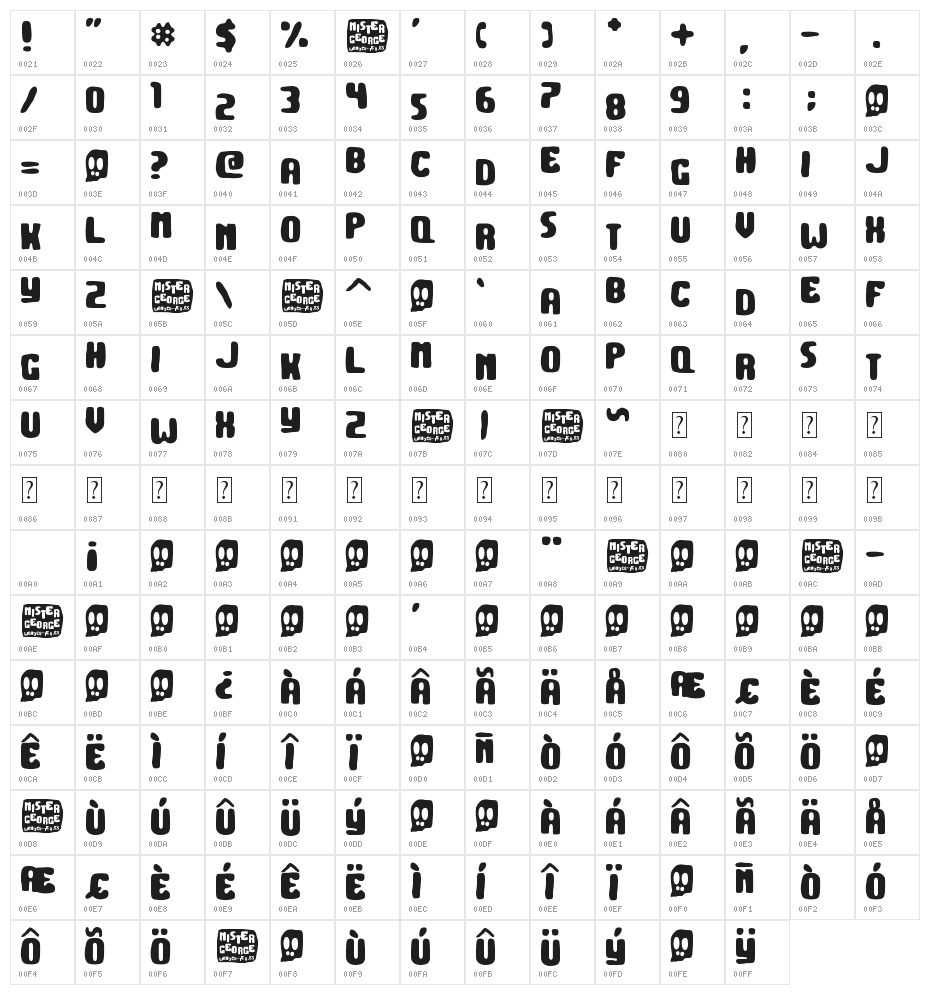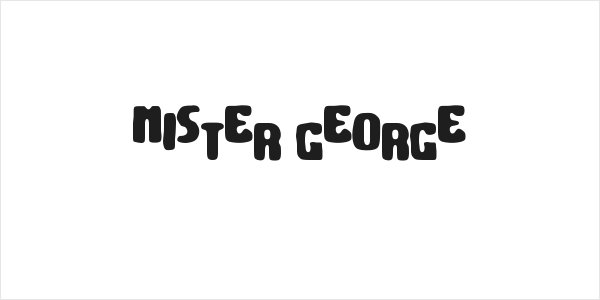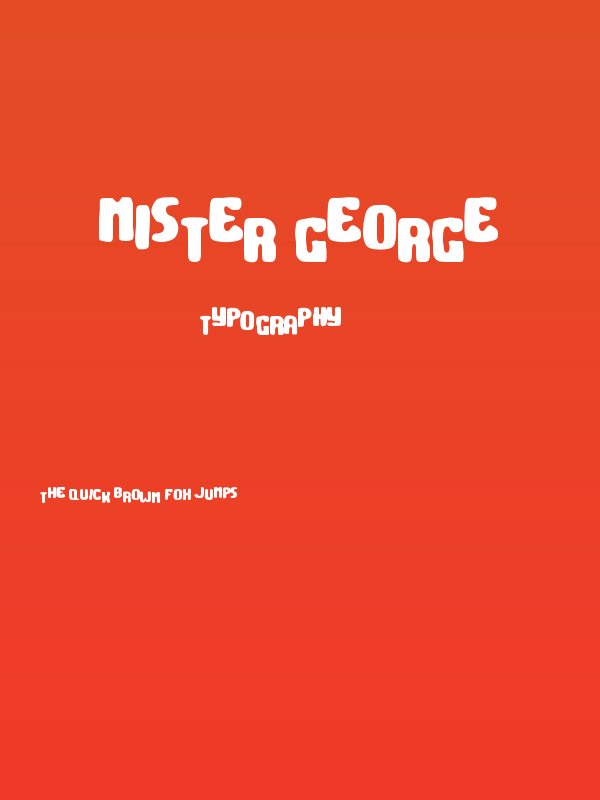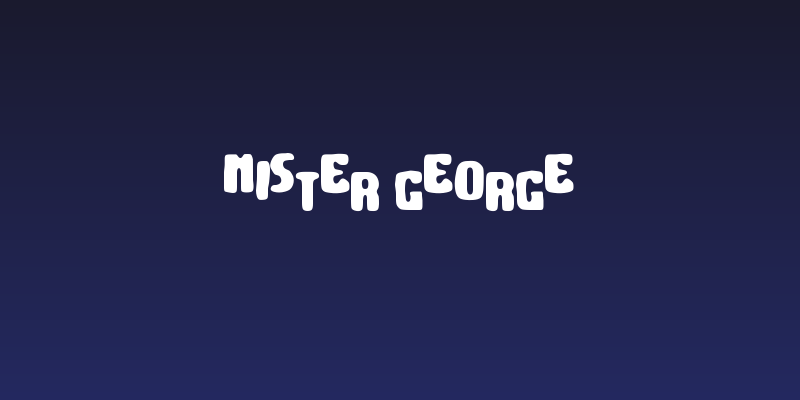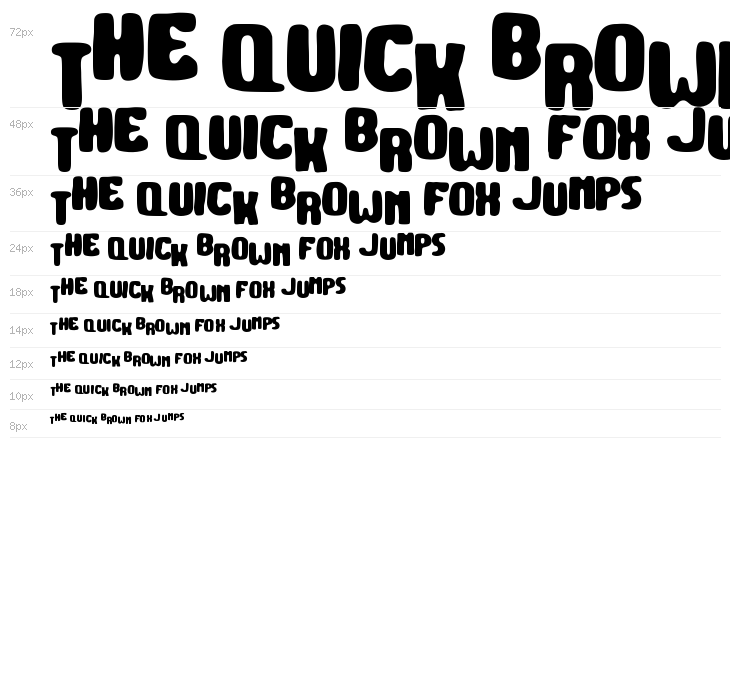
Mister George Font
Mister George Description
This font features a bold and playful design with thick, rounded characters that exude a sense of fun and creativity. The letters are uniquely shaped, with an organic flow that gives them a hand-drawn appearance. The uppercase and lowercase letters maintain a consistent style, with exaggerated curves and a slightly irregular form that adds to their charm. The numbers and special characters follow the same design principles, ensuring a cohesive look across all elements. This font's distinctiveness makes it ideal for projects that require a touch of whimsy and individuality.
| Overall Style | Playful, Creative, Whimsical |
| Proposed Projects | Ideal for children's books, playful branding, posters, and creative packaging. |